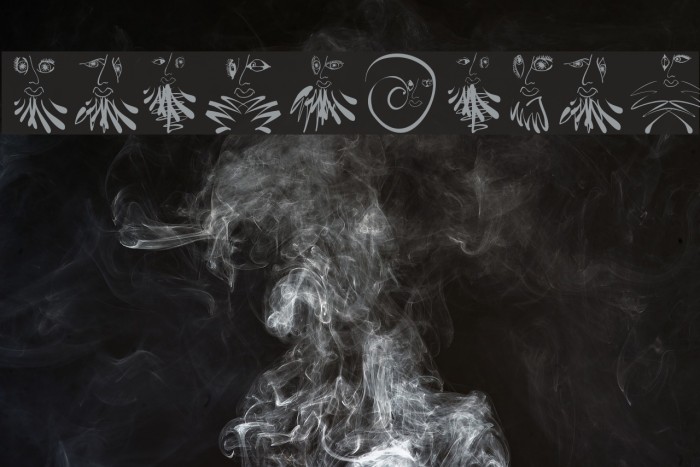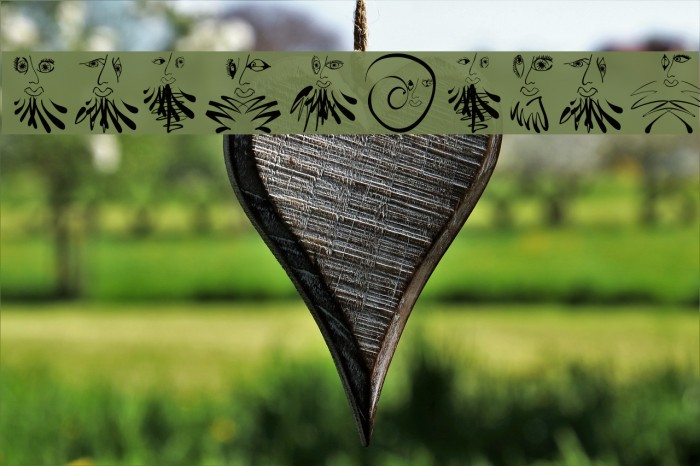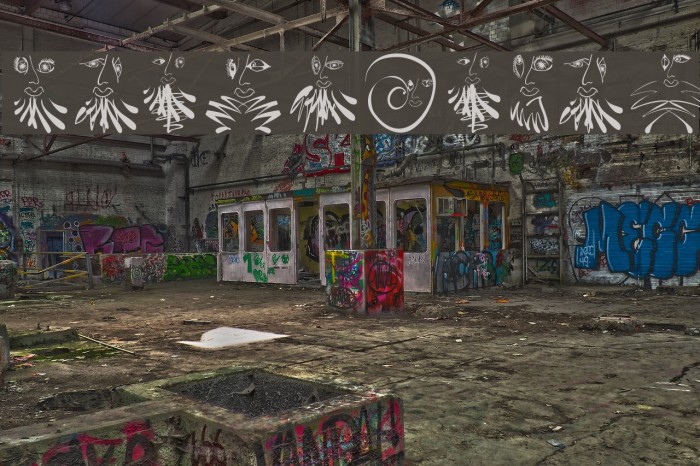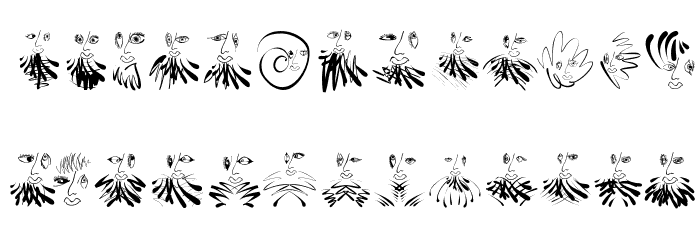
Beardfaces Font
Beardfaces Description
This is a highly decorative and whimsical font featuring playful, abstract representations of faces with beards. Each character is uniquely designed with intricate details, combining elements of facial features and stylized beard shapes. The font exudes a sense of creativity and artistic flair, making it stand out with its unconventional and imaginative design. The characters are bold and expressive, with a hand-drawn quality that adds to their charm. This font is perfect for projects that aim to capture attention and convey a sense of fun and originality.
A whimsical, decorative font with playful, abstract beard-faced characters from Uncategorized fonts.
- Proposed Projects: Ideal for creative projects such as posters, album covers, children's books, and artistic branding.
- Use Case: Logos, Posters, Artistic Branding